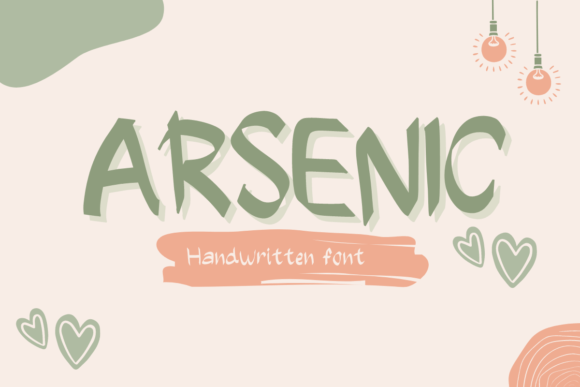
Step into the enchanting world of Arsenic Font, a captivating script font that effortlessly captures the essence of handwritten beauty. Meticulously designed by Sirinart, this font exudes a charming personality that's perfect for adding a touch of elegance and sophistication to your creative projects.
With its graceful curves and flowing lines, Arsenic Font transports you to a realm of imagination and inspiration. Experience the joy of penning down your thoughts, dreams, and stories with a font that feels as intimate as a whispered secret. Let your words dance across the page, guided by the flowing strokes of Arsenic, leaving a trail of artistry in their wake.
Whether you're a passionate writer seeking the perfect font to bring your stories to life, a creative entrepreneur crafting captivating designs, or a social media enthusiast looking to make a statement, Arsenic Font has you covered. Its versatility knows no bounds. Unleash your creativity and let Arsenic Font become your muse, guiding you toward design masterpieces that resonate with your audience.
Dive into the endless possibilities that await with Arsenic Font. Use it to craft enchanting greeting cards that convey heartfelt messages, design eye-catching banners that demand attention, or create stylish mugs and cards that make a lasting impression. Transform your social media posts into works of art, captivating your followers with visually stunning content. The possibilities are limitless.
And the best part? Arsenic Font is incredibly user-friendly. Whether you're a seasoned design pro or just starting out, this font is your perfect companion. Its intuitive design makes it a breeze to use, ensuring that your creative vision is brought to life with ease.
So, embark on a journey of creativity and self-expression with Arsenic Font. Let your imagination soar as you explore the endless possibilities it offers. Let your words and designs come alive with the magic of Arsenic, captivating hearts and leaving a lasting impression wherever they go.